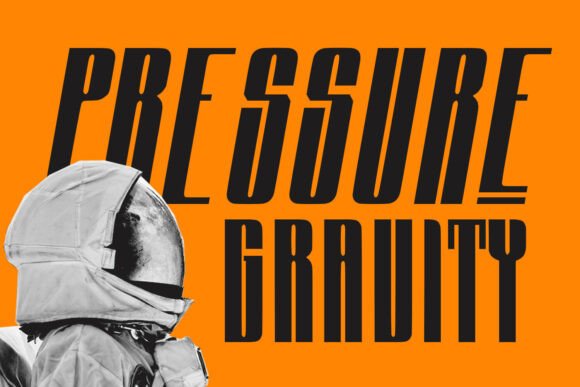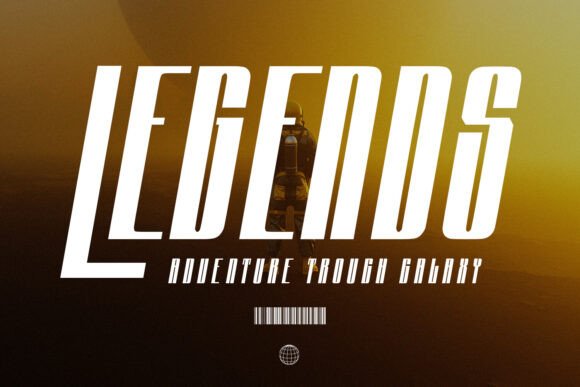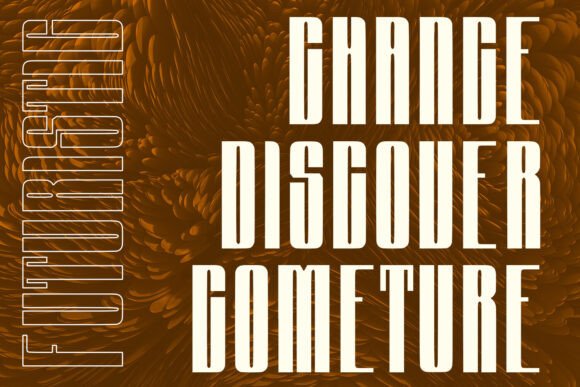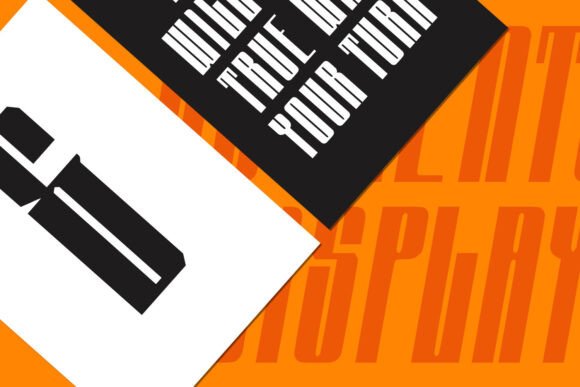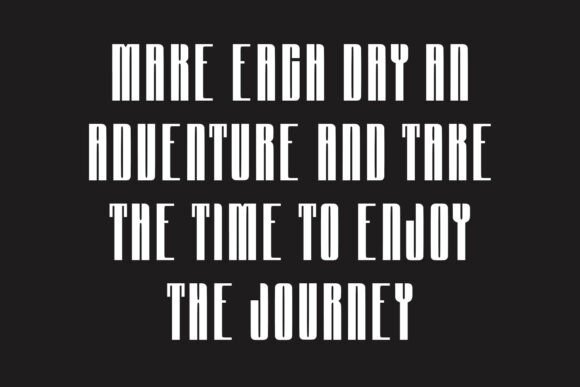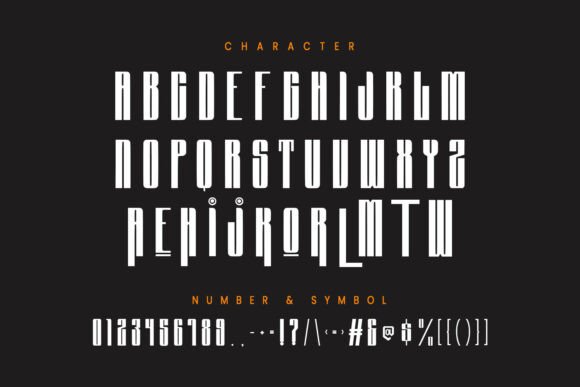
Introduction to Roollents Font
Have you ever found yourself stuck in a creative rut, scrolling through your design resources, searching for that one perfect font to elevate your project? For designers, finding the right font can be a game-changer. It’s like stumbling upon a hidden treasure – the perfect combination of style and functionality that takes your work to the next level.
That’s where the Roollents Font comes in – a futuristic sans display font designed to add a touch of creativity to your projects. With its relaxed characters and sharp strokes, this font is perfect for logo design, social media, movie titles, and more. Whether you’re working on a short or long text, the Roollents Font is sure to impress with its high-quality design and versatility.
Key Features of Roollents Font
- Unique, hand-drawn design perfect for creative projects that require a personal touch.
- Perfect for designers seeking a high-quality, creative font that adds a unique touch to their work.
Honest Review: Roollents Font
As a designer, I’m always on the lookout for unique and high-quality design resources to elevate my creative projects. Recently, I stumbled upon the Roollents Font, and I’m excited to share my honest review with you.
- ✨ The font’s quirky and playful style makes it perfect for adding a touch of whimsy to your designs.
- ✨ The high-quality vector design ensures that the font scales well and remains crisp even at larger sizes.
- ⚠️ The font’s limited character set may not be suitable for projects that require a wide range of characters or languages.
- ⚠️ The font’s playful style may not be suitable for formal or professional designs.
Tips for Getting the Most Out of Roollents Font
Use Roollents Font with a transparent background to create a unique design element. Experiment with different font sizes and styles to create a visually appealing design. Use Roollents Font in combination with other design resources to create a high quality design.
Common Use Cases for Roollents Font
Roollents Font is commonly used in creative projects such as logos, brochures, and business cards. It is also used in presentations and documents to create a visually appealing design. With its high quality design and transparent background, Roollents Font is a versatile design resource that can be used in a variety of creative projects.